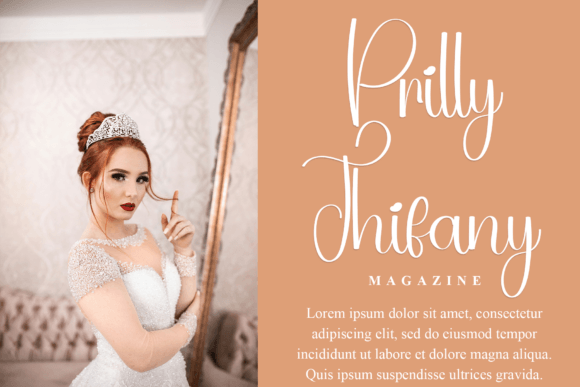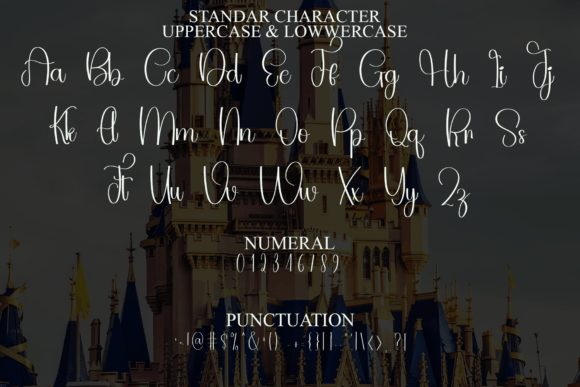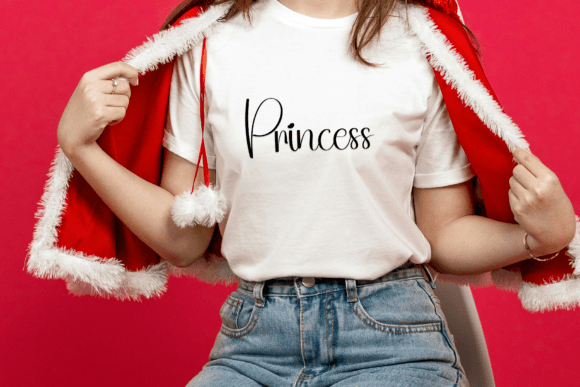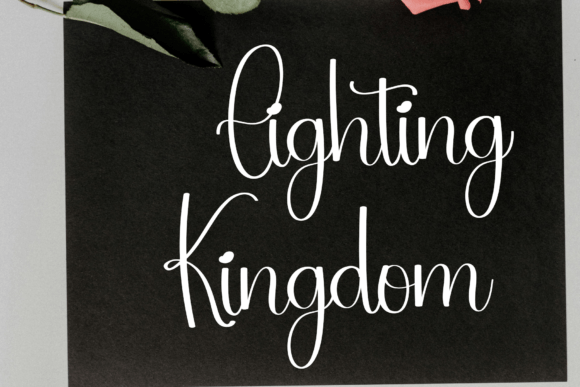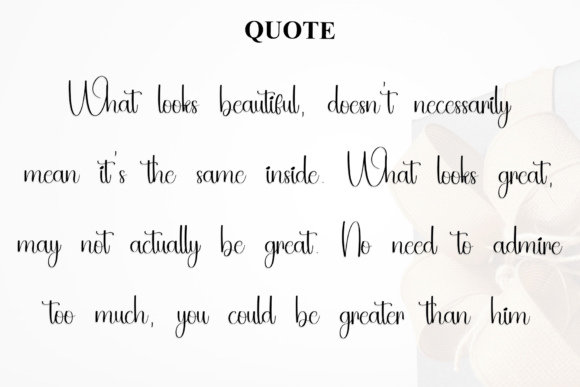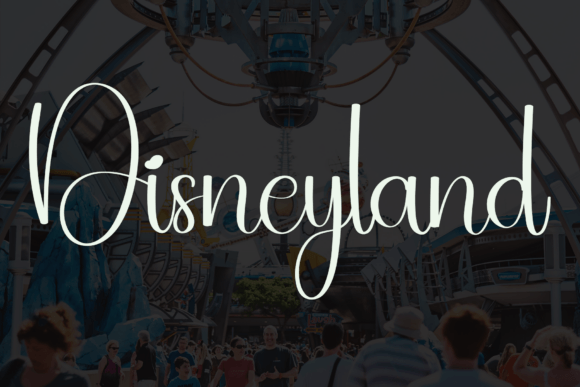
Introducing Family Disney Font: A Festive and Merry Typeface for the Holiday Season
The holiday season is upon us, and what better way to get into the spirit than with a font that’s as festive and merry as Family Disney Font? This enchanting typeface is designed to capture the magic of Christmas, with its decorative elements and whimsical flair that will add a touch of wonder to your designs. Whether you’re a designer, crafter, or simply someone who loves the holiday season, Family Disney Font is the perfect addition to your typography collection.
A Font that’s Full of Holiday Cheer
Family Disney Font is a beautifully crafted typeface that’s perfect for creating holiday-themed projects that are sure to bring a smile to everyone’s face. With its cheerful and nostalgic ambiance, this font is ideal for use in greeting cards, gift tags, and other holiday-themed designs. The font’s decorative elements, such as snowflakes, holly leaves, and Christmas trees, will add a touch of festive fun to your words, making them truly special.
One of the best things about Family Disney Font is that it’s PUA (Private Use Area) encoded, which means you can access all of the amazing glyphs and ligatures with ease. This makes it simple to use the font in your designs, even if you’re not a professional typographer. With PUA encoding, you can easily access the font’s many features, including:
- Decorative glyphs, such as snowflakes, holly leaves, and Christmas trees
- Whimsical ligatures, such as festive combinations of letters and symbols
- Alternating characters, to add variety and interest to your text
Family Disney Font is a versatile typeface that’s perfect for both designers and crafters. Whether you’re creating professional designs for clients or crafting personal projects for fun, this font is sure to be a valuable addition to your toolkit. Here are just a few ways you can use Family Disney Font:
- Create festive greeting cards and gift tags for friends and family
- Design holiday-themed posters, flyers, and brochures for clients or personal projects
- Add a touch of holiday cheer to your website or social media graphics
- Use the font to create custom holiday-themed crafts, such as scrapbook pages or DIY decorations
Tips for Using Family Disney Font
To get the most out of Family Disney Font, here are a few tips to keep in mind:
- Use the font in large sizes to really showcase its decorative elements
- Combine the font with other holiday-themed graphics, such as illustrations or photos, to create a cohesive look
- Don’t be afraid to get creative and try out new and unusual design ideas